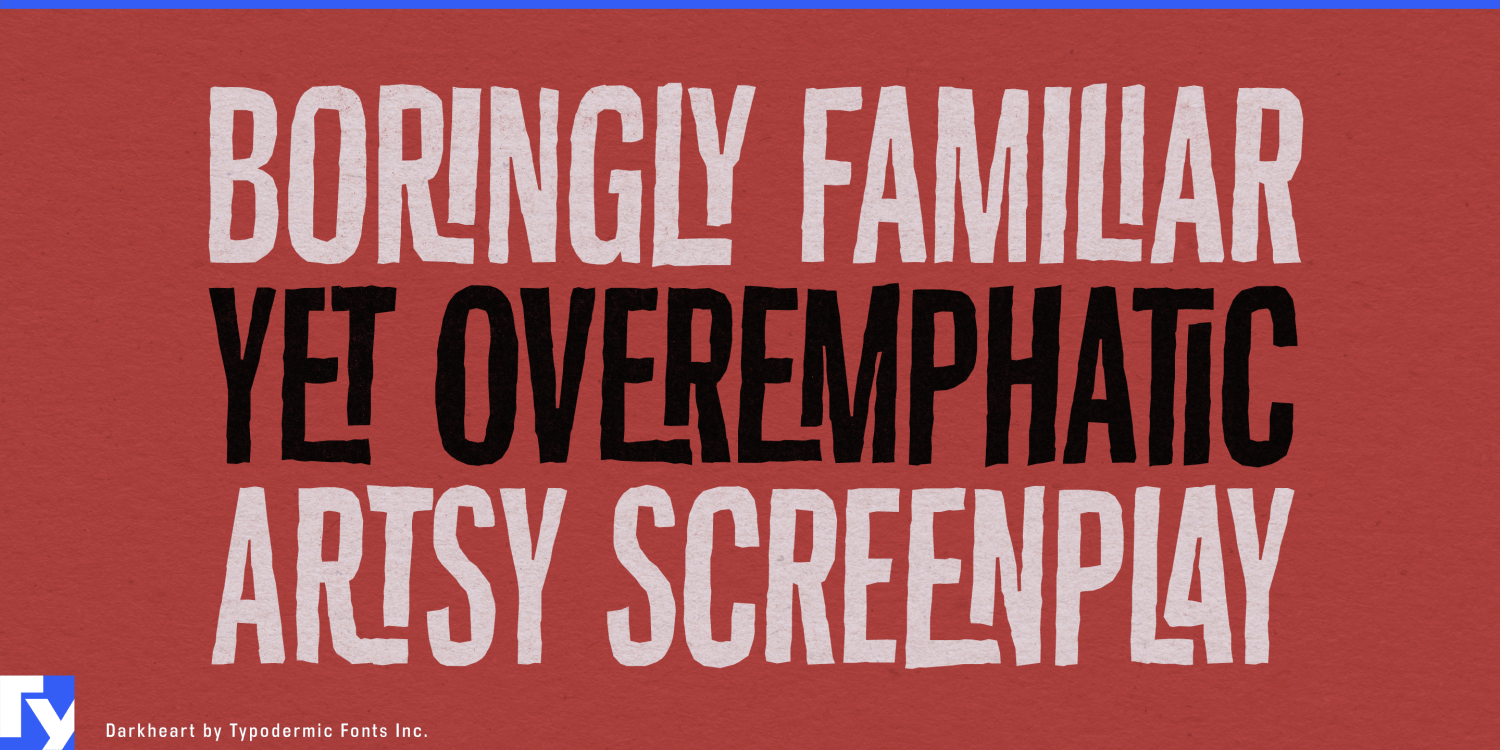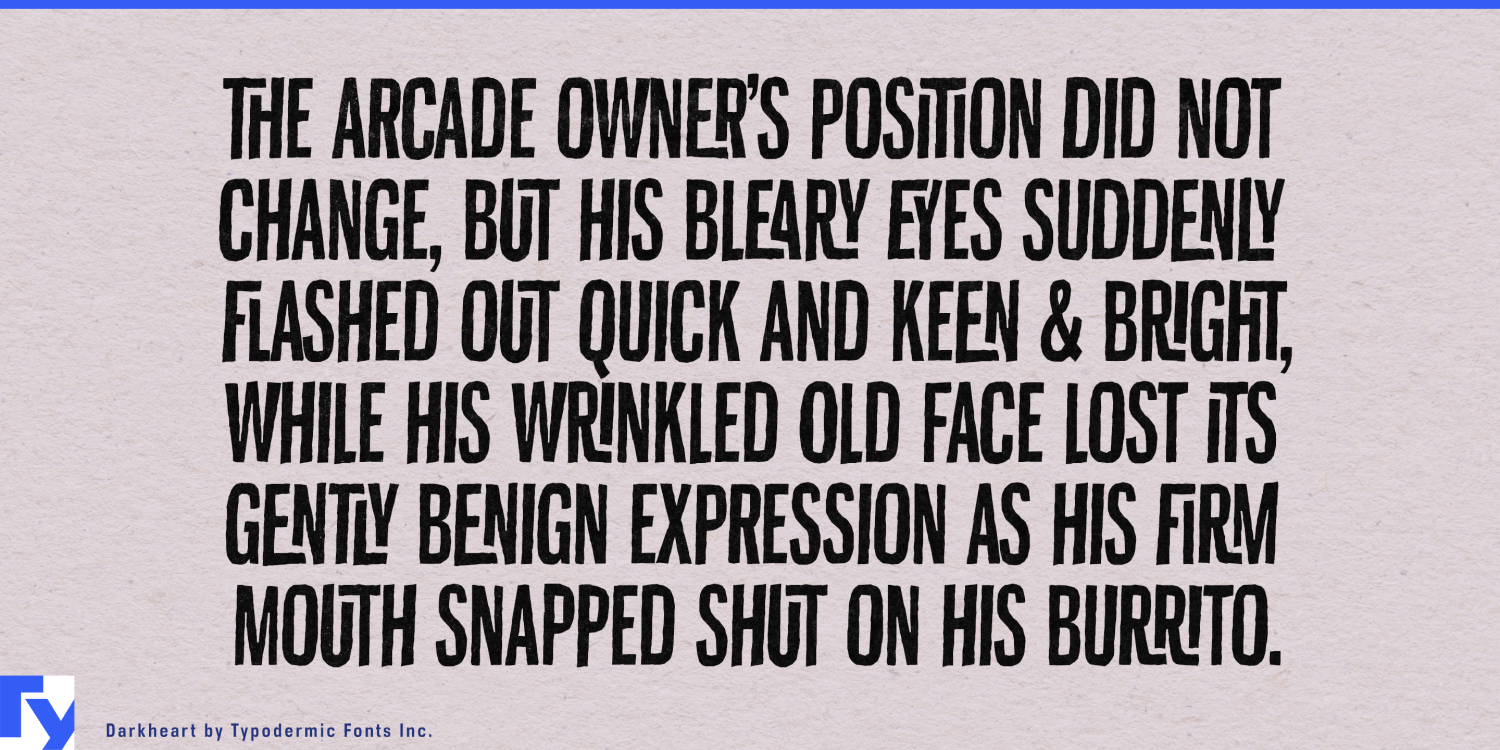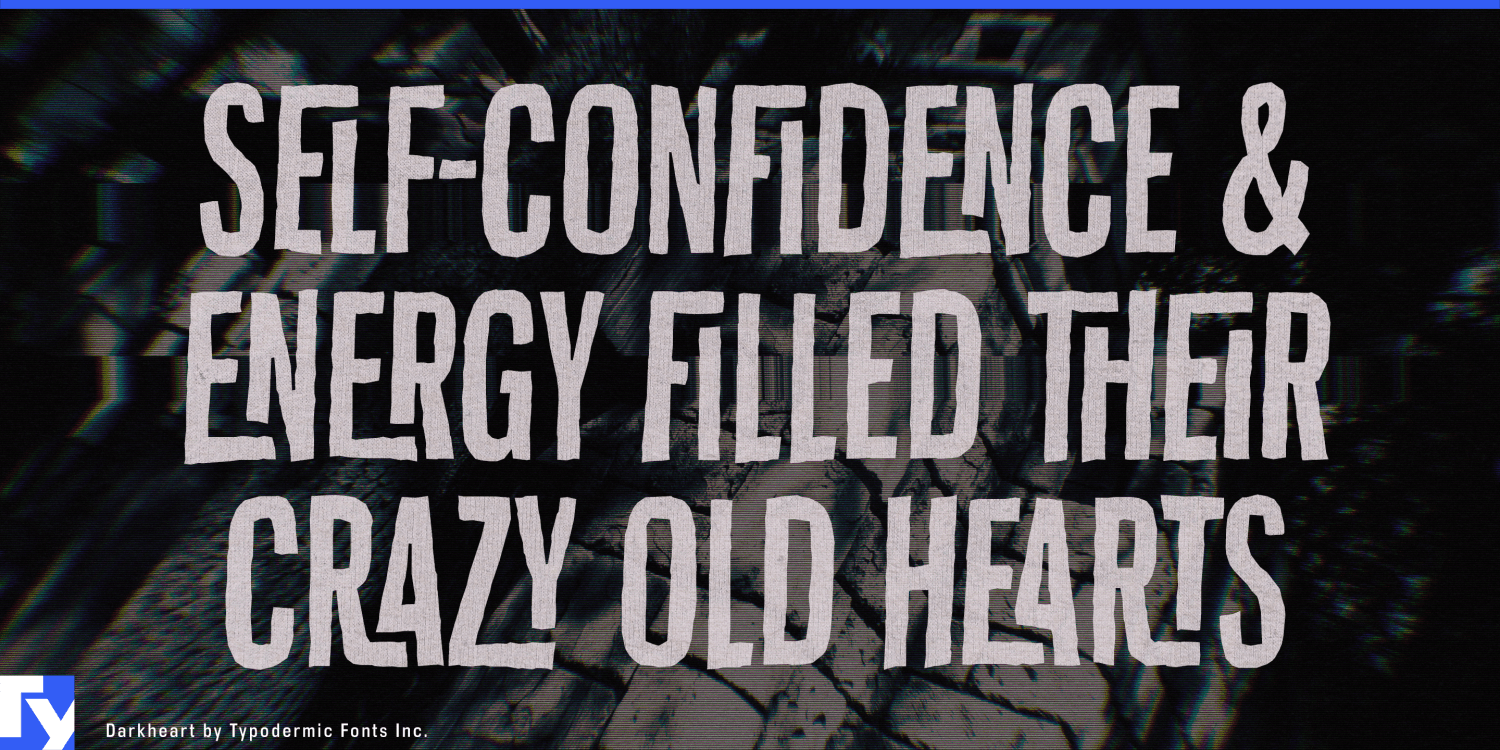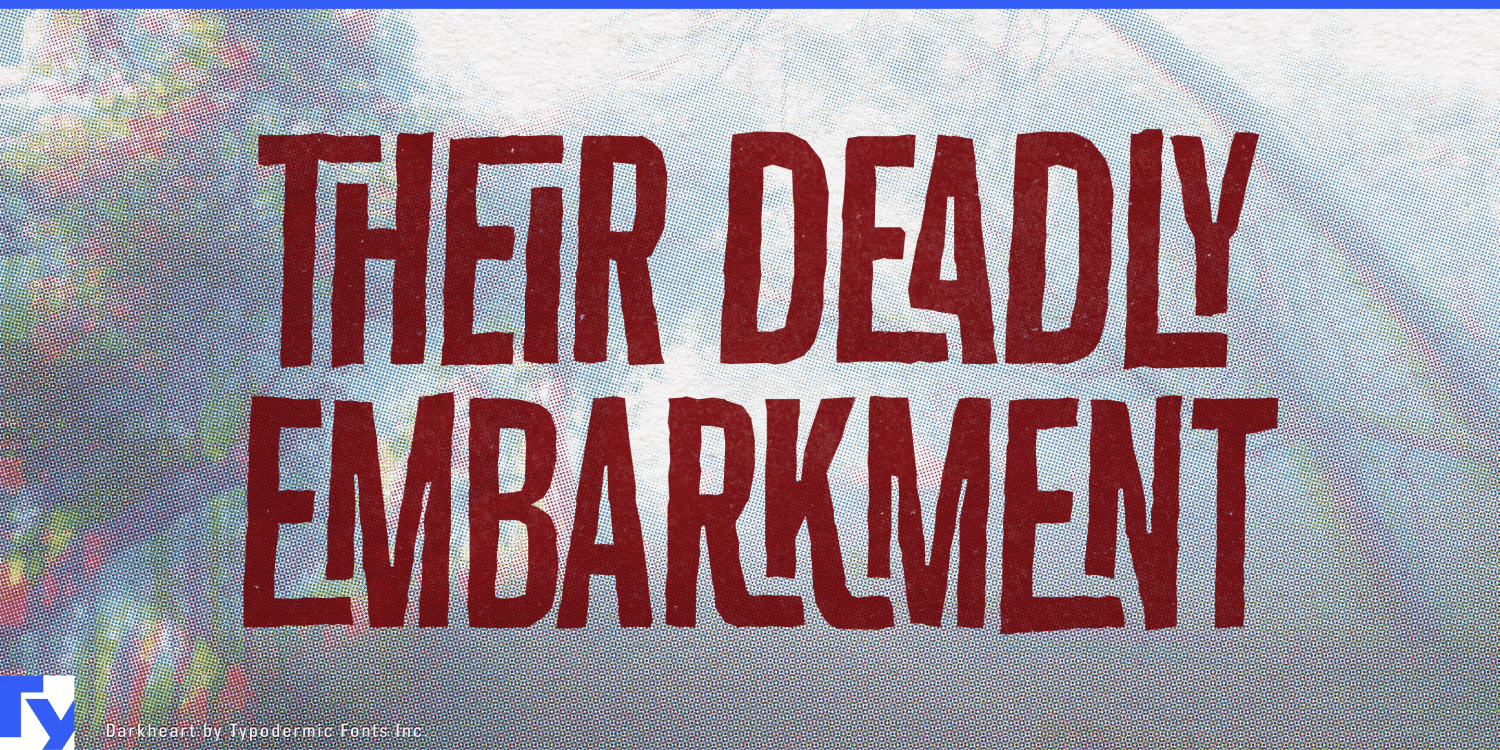
About Darkheart
Prepare to unleash the shadows with Darkheart, a typeface that doesn’t just flirt with darkness—it embraces it with open, monstrous arms. This isn’t your average font; it’s a portal to a realm where letters writhe and squirm, channeling…